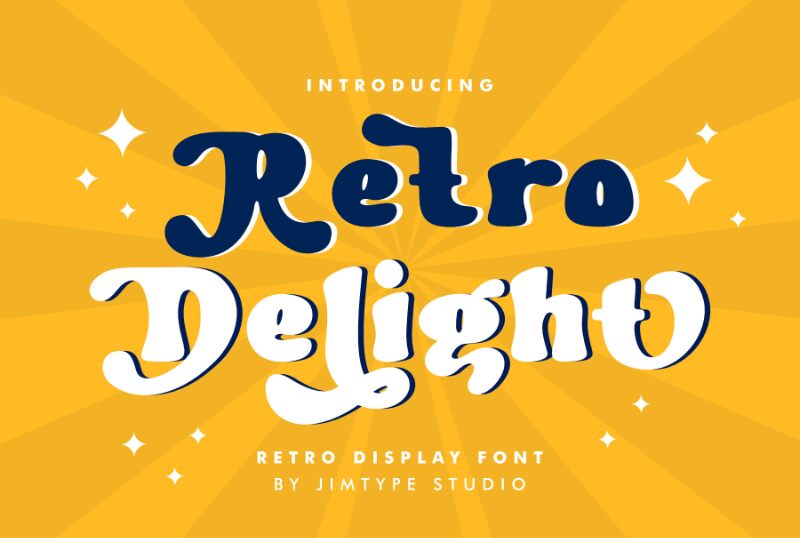
Retro Delight font is a groovy display font from Jimtype Studio. This playful and nostalgic typeface features bold, rounded forms with high contrast for an informal tone. The design is characterized by soft curves and thick lines to evoke the retro style.
Retro Delight font use cases include print, magazines (titles and layouts), name cards, logos, branding, invitations (wedding or event), signage, content creation on social media platforms (Instagram posts or memes) or any project in need of that special touch! Retro Delight will especially overseas success in the hearts of designers engaging with these various fields!